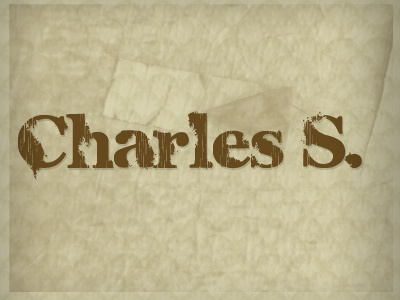
Charles S. by Jonathan Paquette of High-Logic.com is a free eroded serif display font with the sturdy shape of old wood type. Its broad letters combine firm slab-like details with scratches, chips, and uneven patches that make the printing seem weathered rather than digitally distressed.
It can turn a poster title or package label into a worn shop sign. That rough surface also suits roots music merchandise and historical event graphics, because it recalls ink breaking across aged paper. In editorial design, the missing flecks can echo torn photographs and photocopied textures, tying the lettering directly to the imagery.